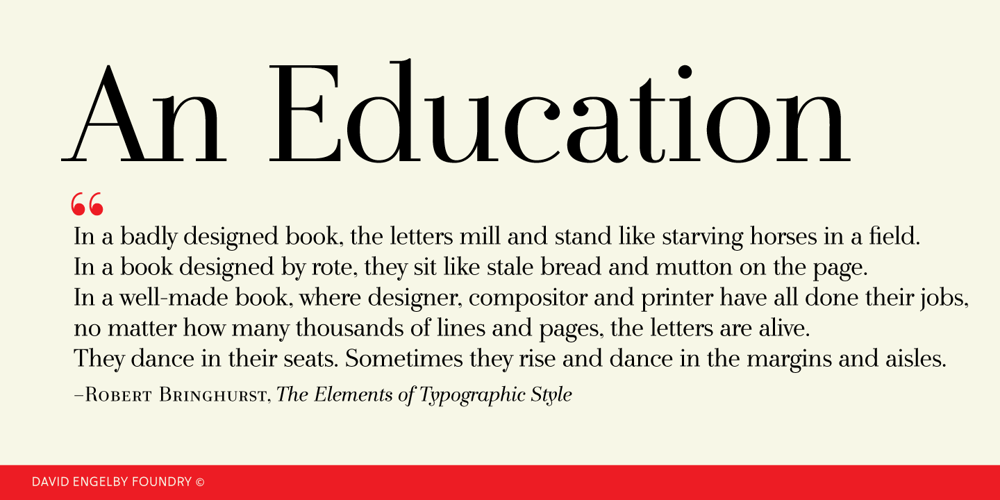
An Education Font Family was designed by David Engelby and published by David Engelby Foundry. An Education contains 7 styles and family package options. Go ahead, and call it a rational serif. After all, An Education owes its basic style to the neoclassical typefaces like Bodoni and Didot. But it’s more than simply a rational approach – An Education is pure love for a classic expression of elegance (combined with a touch of European decadence, I mean, who needs Le Corbusier all the time?). An Education is a tailor made text font for those of you who crave elegant typographic design. Elegantly spice up your reports, your book layouts, your posters and many other designs – without sacrificing legibility or contrasts.